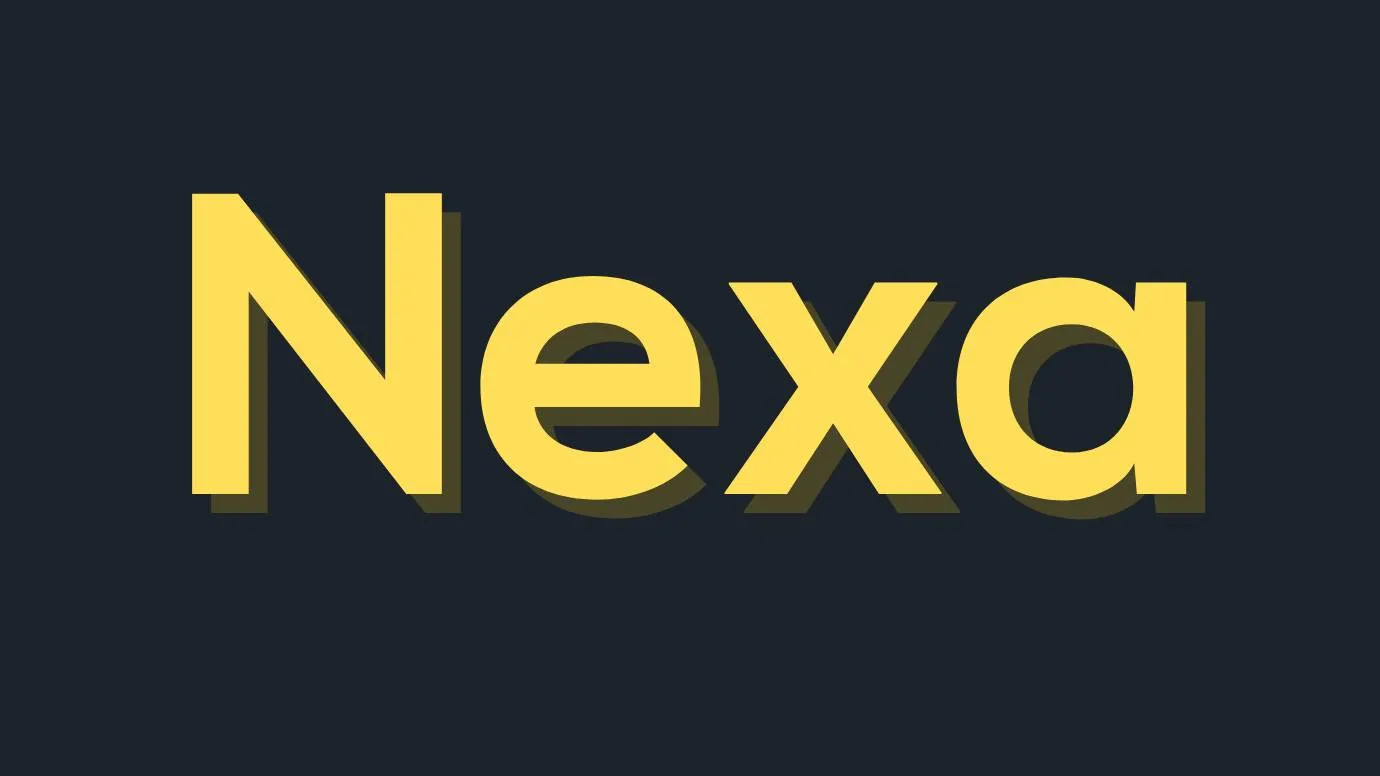
Nexa is the pure sans-serif typeface that is designed by one of the most famous fonts foundry namely Fontbaric. Svet Simov is the primer designer of this typeface.
You will come across many different typefaces that look similar to this font but the best alternatives would be Raleway and Primetime Font. This is the prime typeface of the famous online platform Wikipedia.